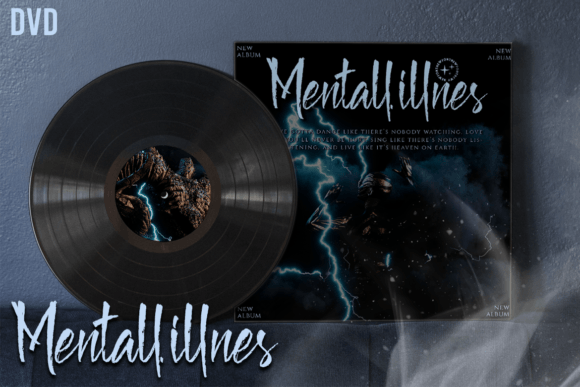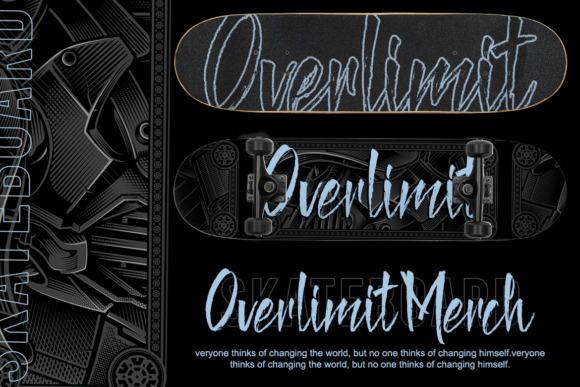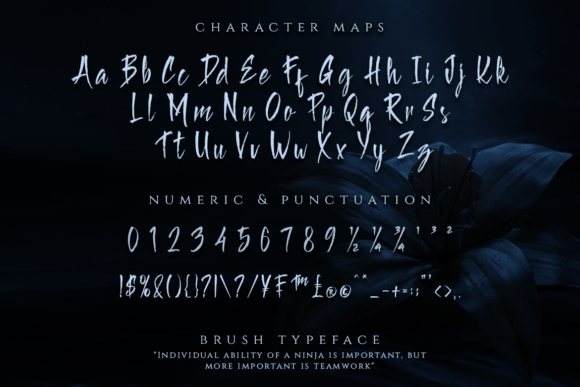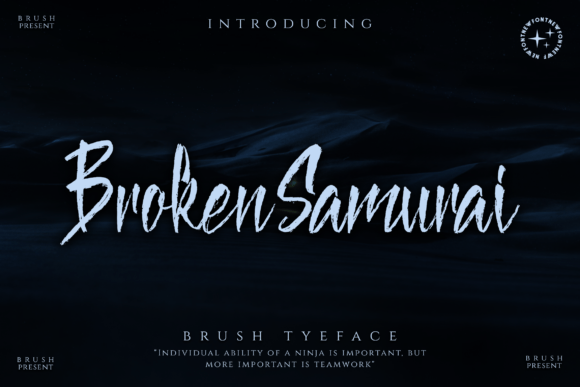
Introduction to Broken Samurai Font
Broken Samura is a unique and beautiful script font.
The brush-style letterform has a soft and lively feel, which makes it perfect for any project This brush-style font has an elegant look that can make your designs look fantastic.